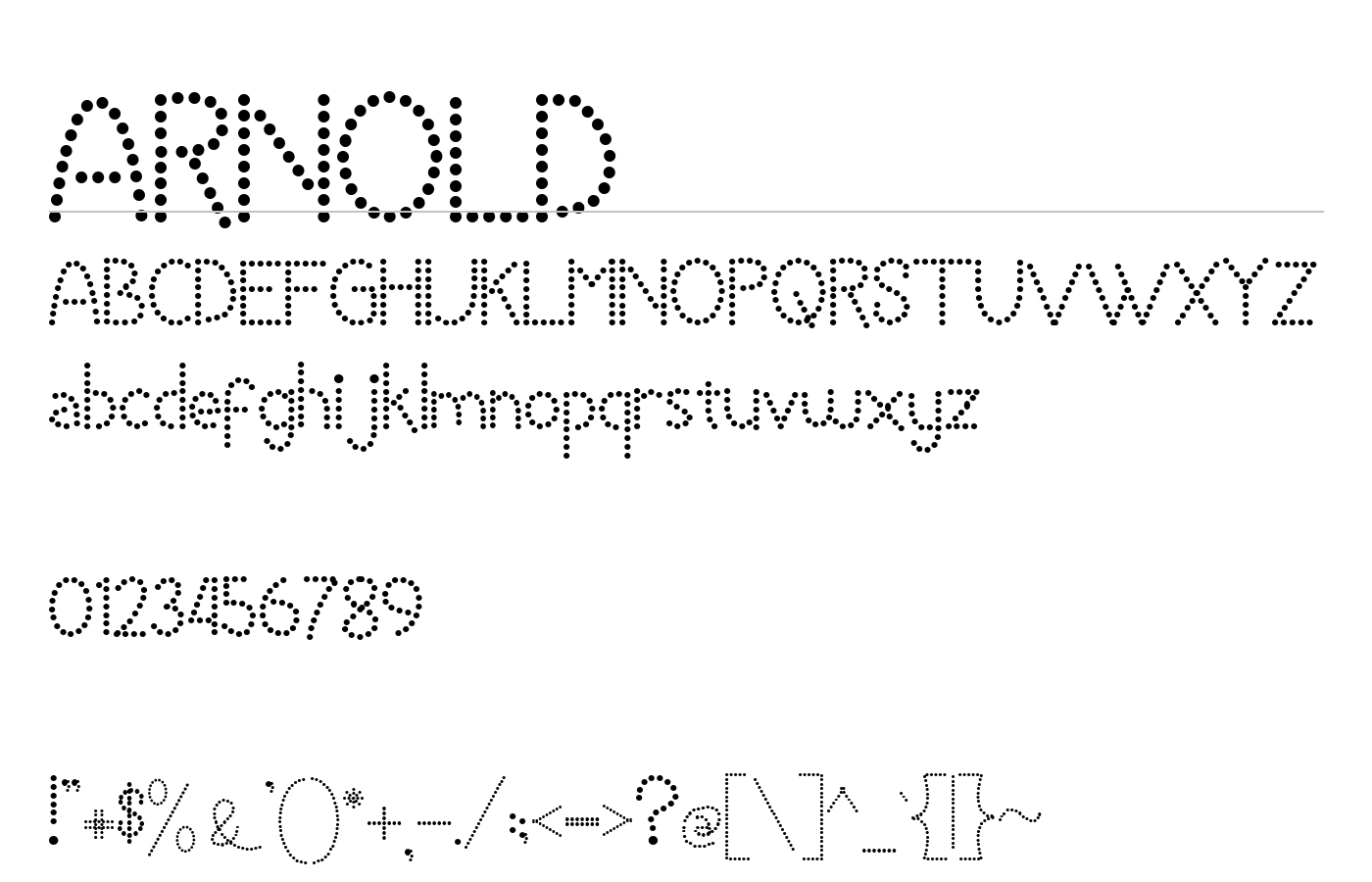
ARNOLD is a playful and modern sans serif font characterized by its unique dotted stroke construction, giving it a light and airy appearance. With uniform stroke weight and rounded dot shapes, it offers a whimsical and approachable style that works well for creative projects, social media graphics, and youthful branding. Its distinctive form makes it perfect for eye-catching headlines and decorative text rather than long body copy.
ARNOLD Font
About ARNOLD Font